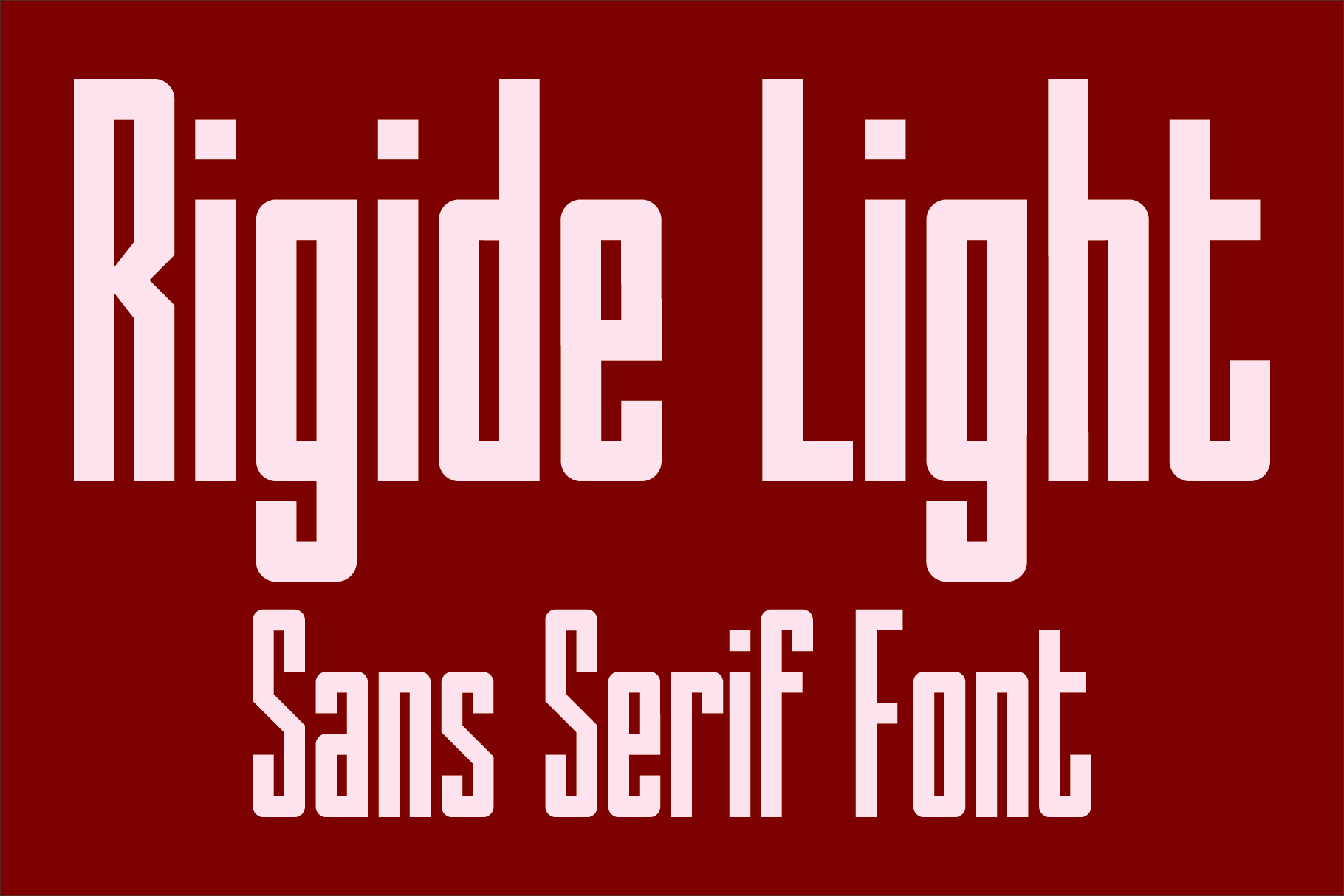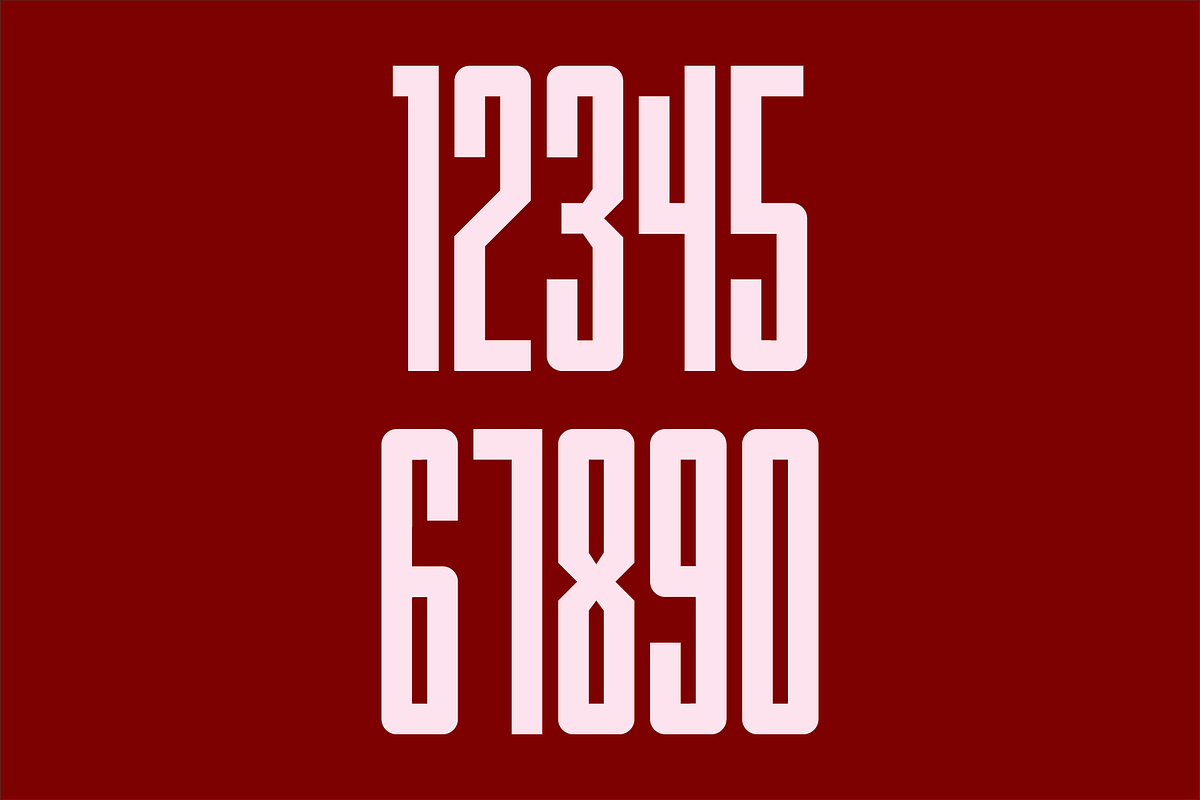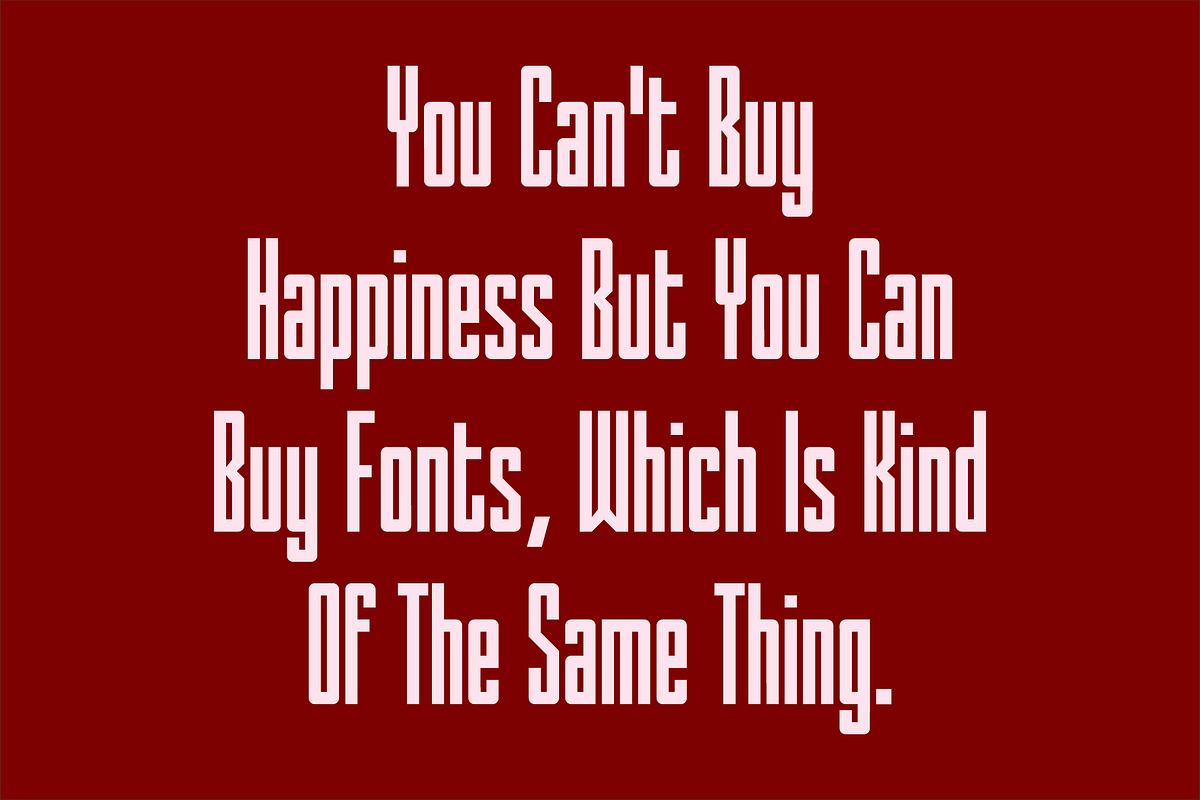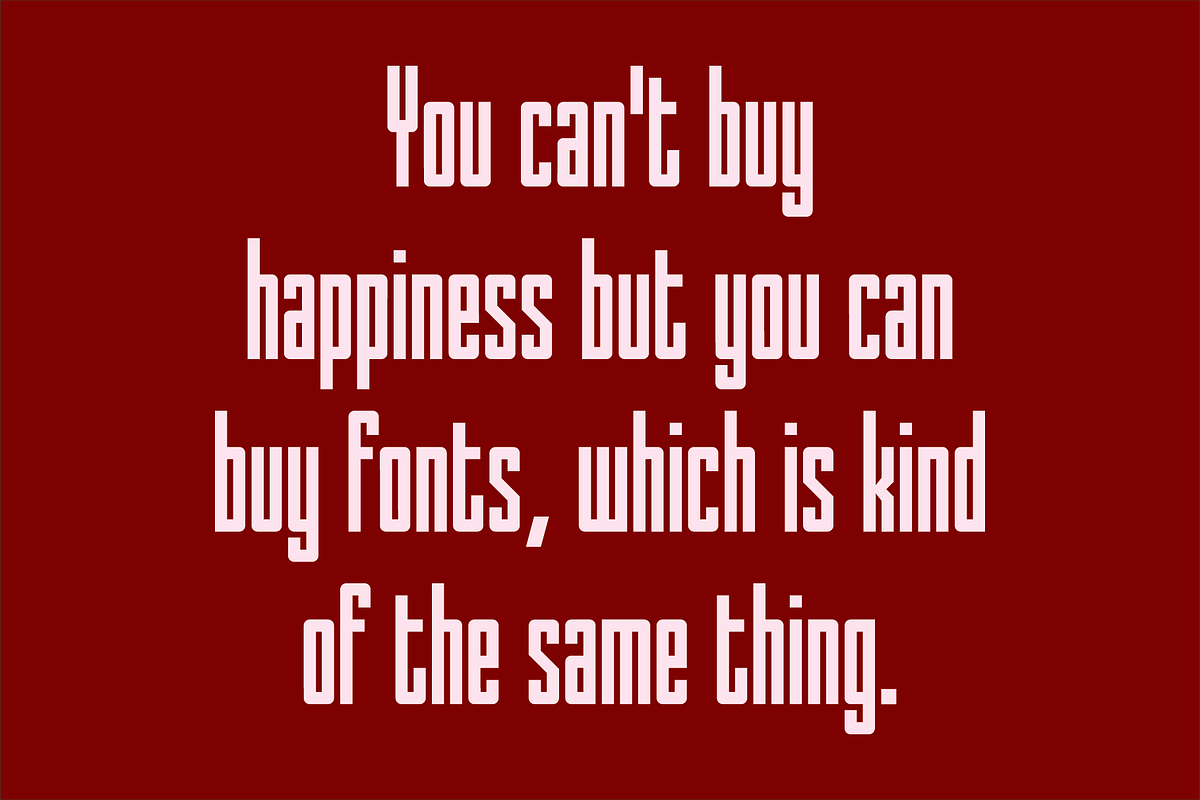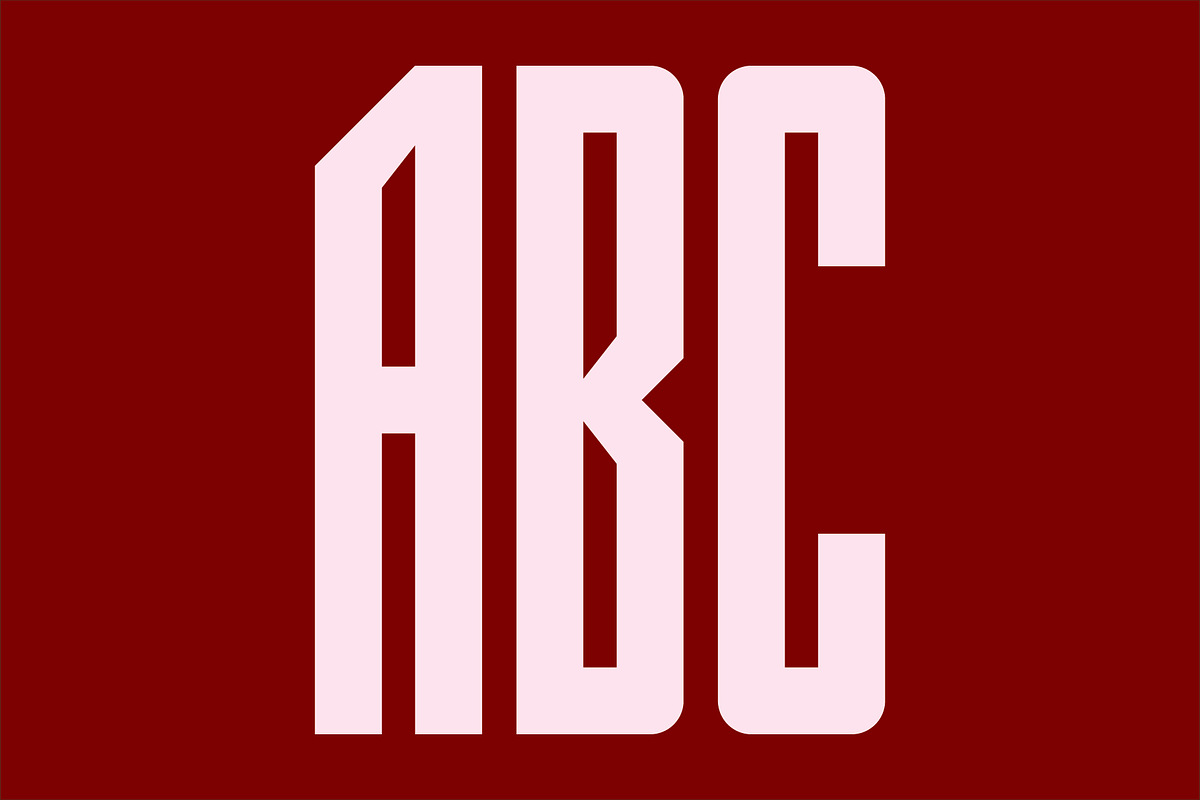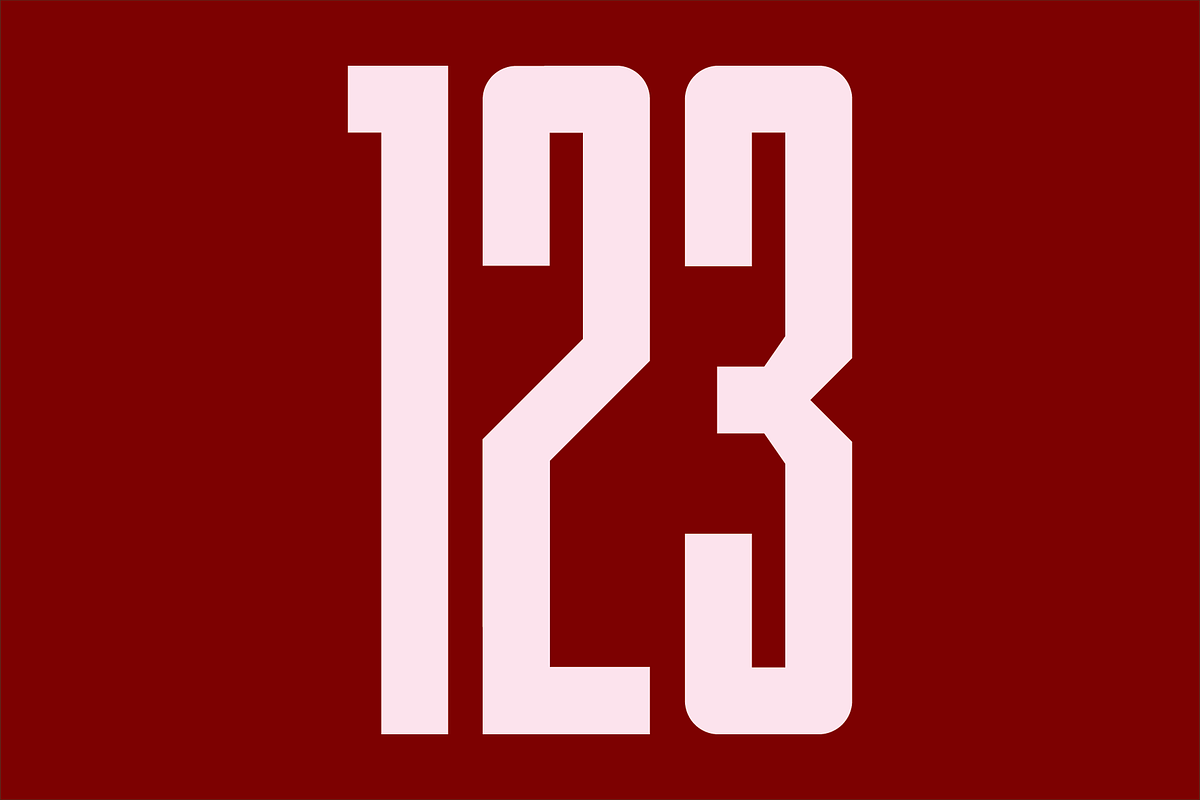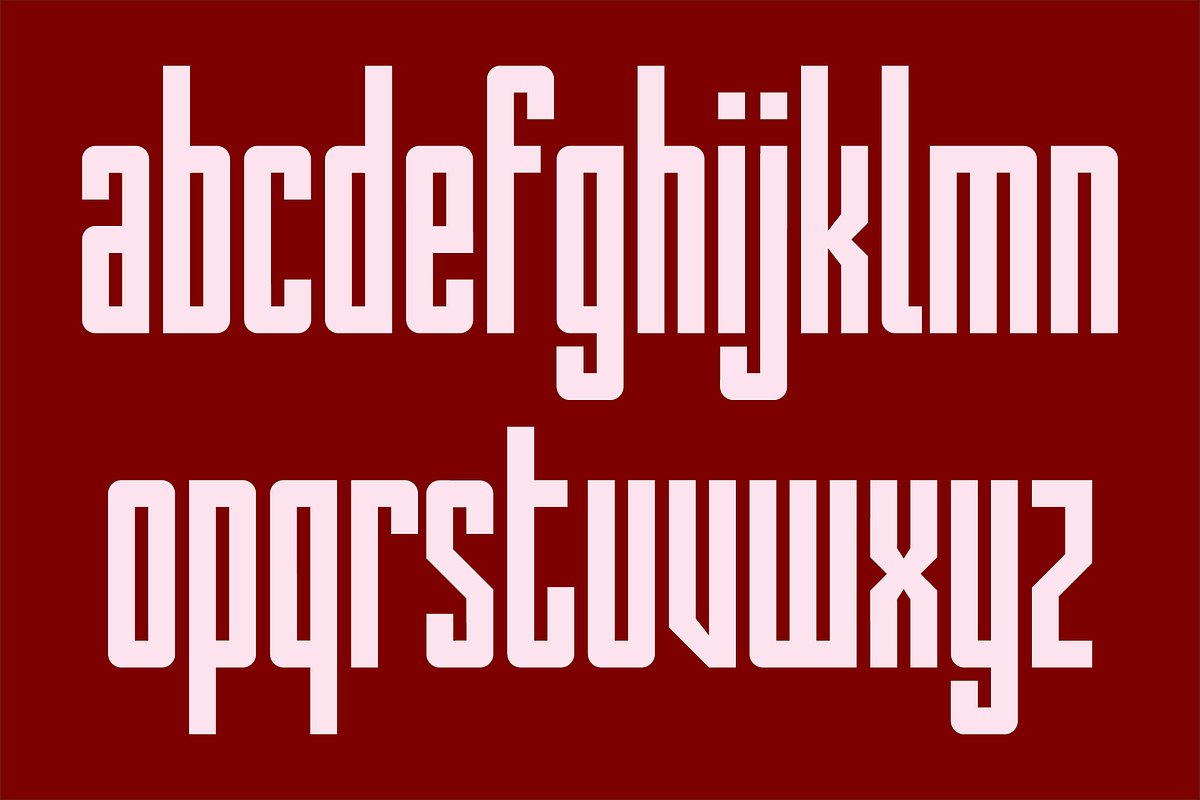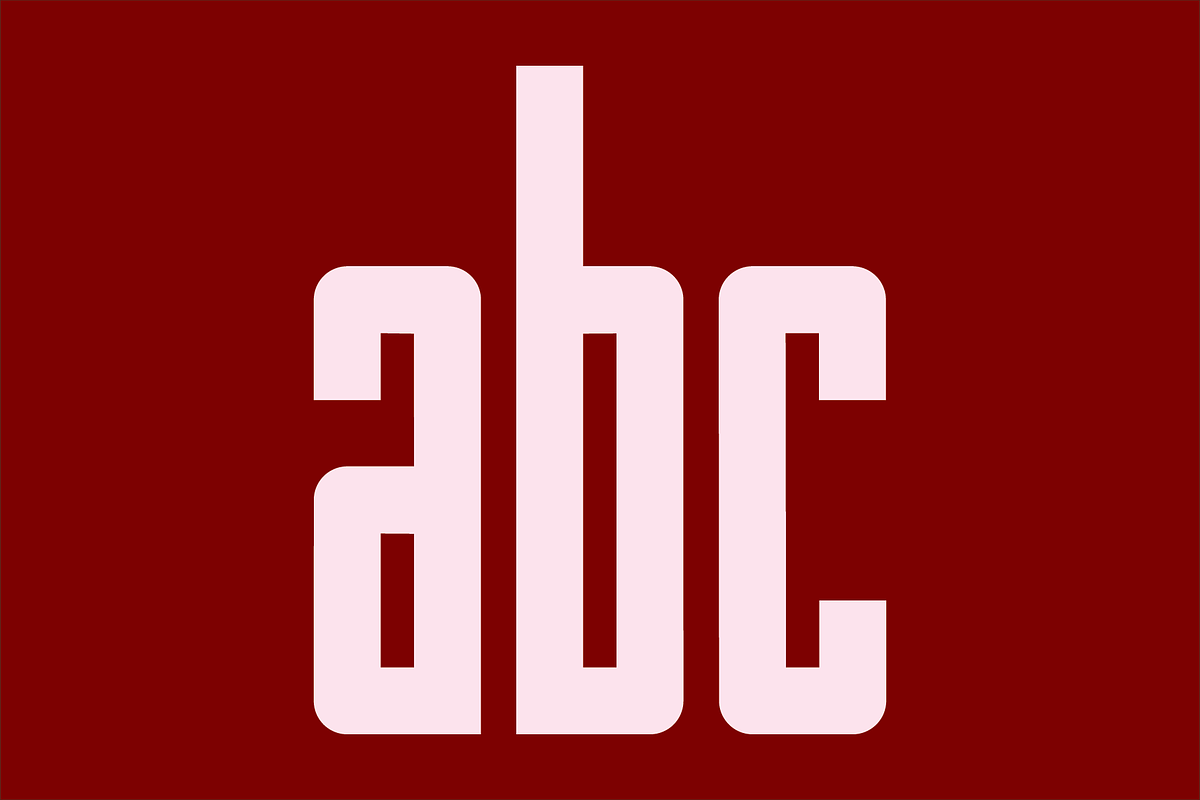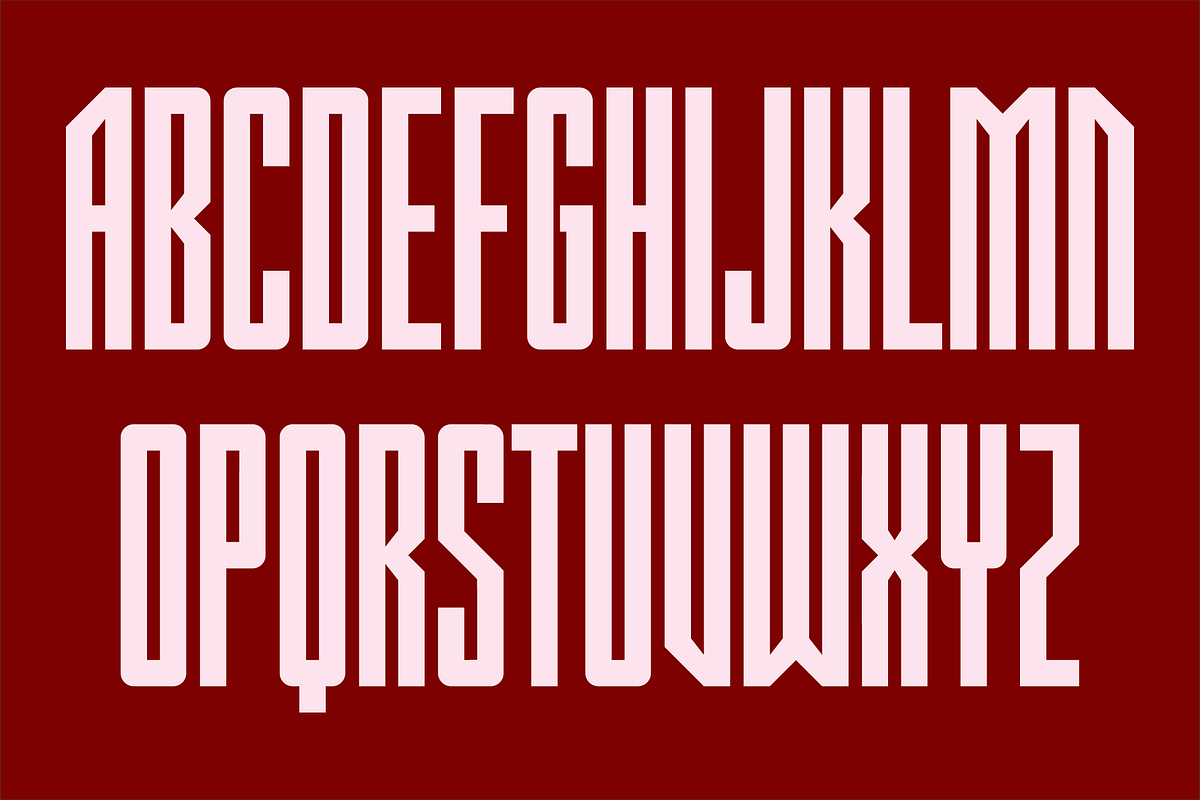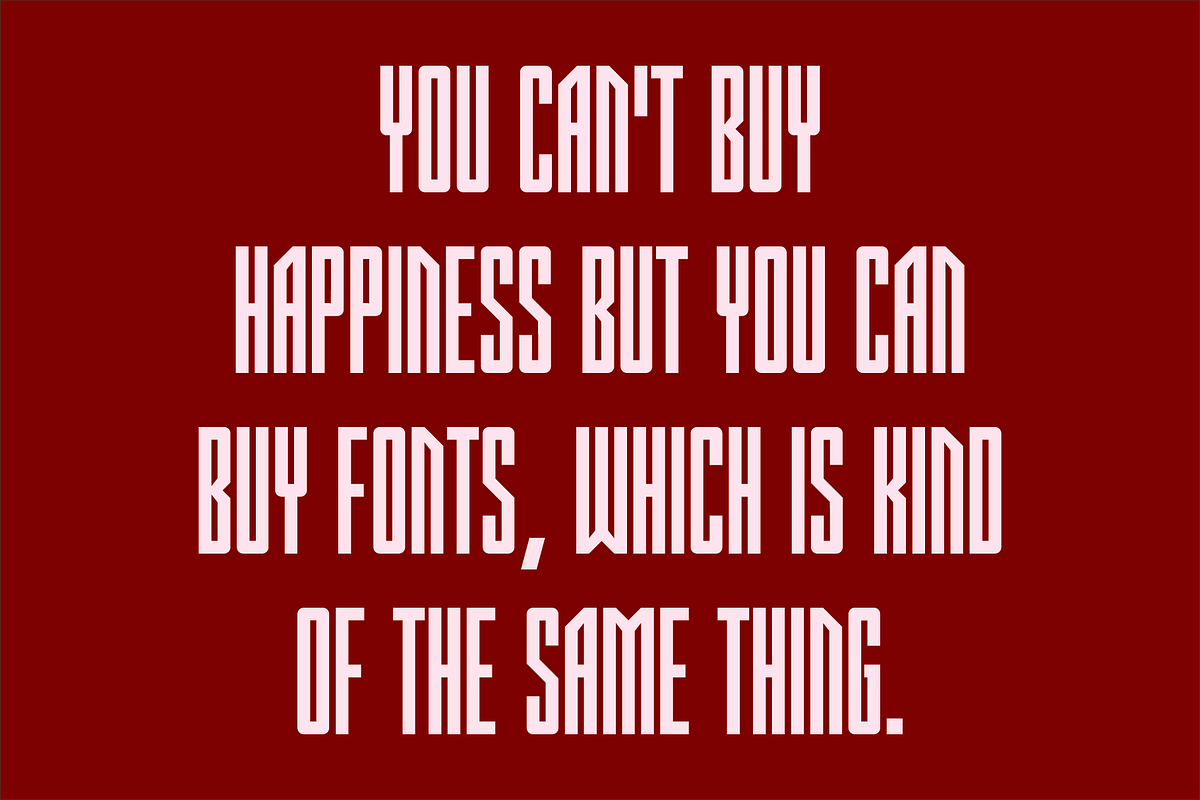
Rigide Light - Sans Serif Font
Rigide Light is a clean, contemporary, geometric, condensed sans serif font. It is ideal for headlines, titles, branding and small blocks of text.